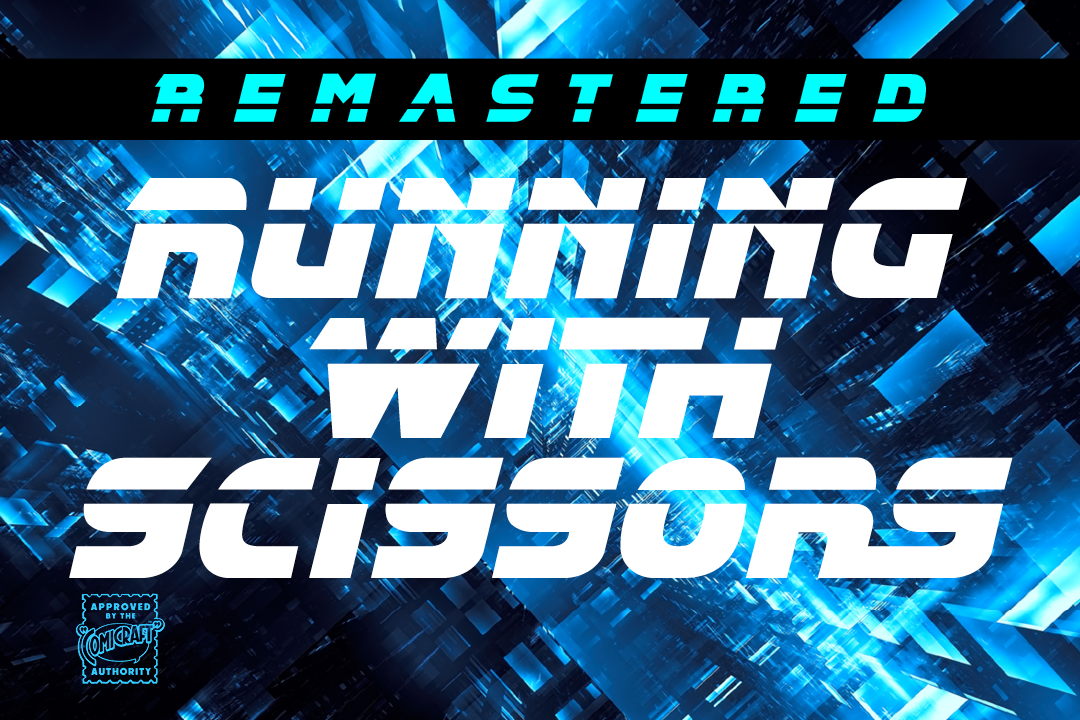
RunningWithScissors sci-fi logo font
Your Mama told you not to do it, so you just KNOW this font will be good for you! In fact, you might say it’s a Cut Above the Rest. OUCH! Blade Runners: Be careful, you don’t want to retire a human by mistake!
- "Up" and "Down" weights with hook-tops in the uppercase and no hooks in lowercase
- 60 connected letter combos for instant logo design (available in Opentype "Discretionary Ligatures")